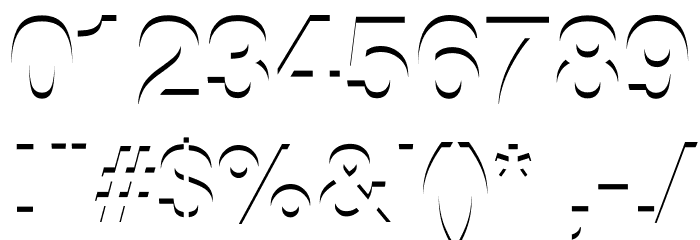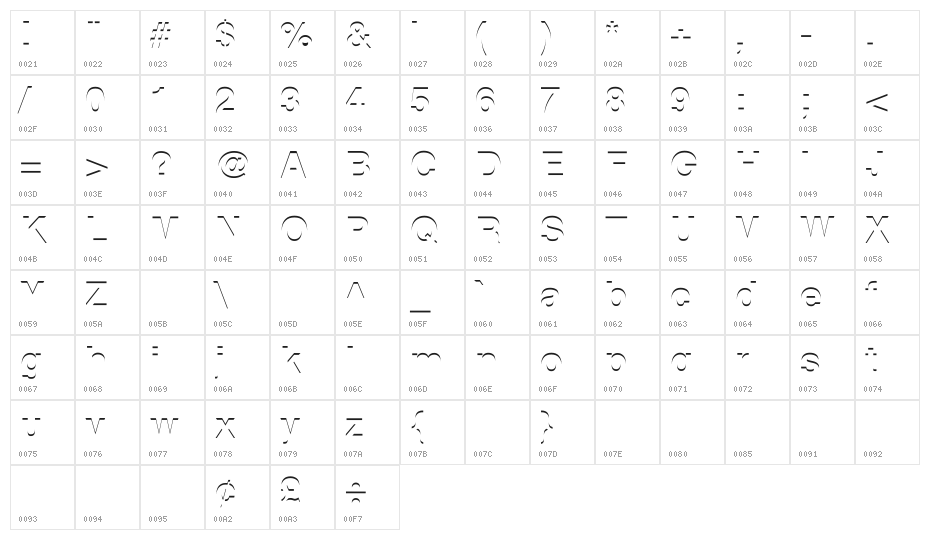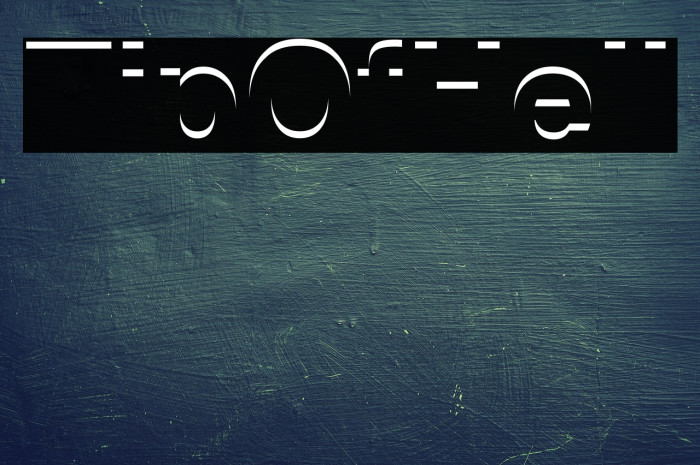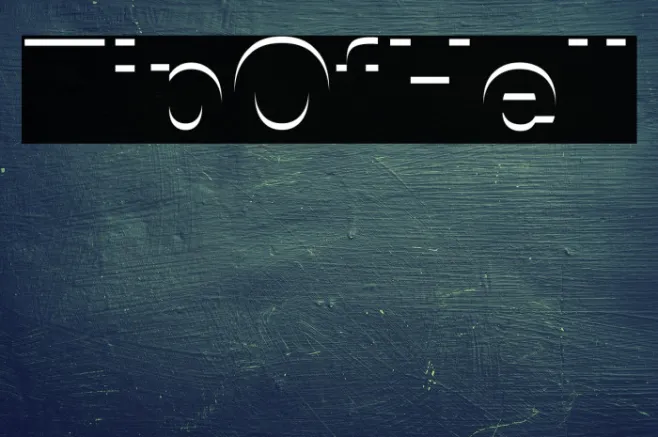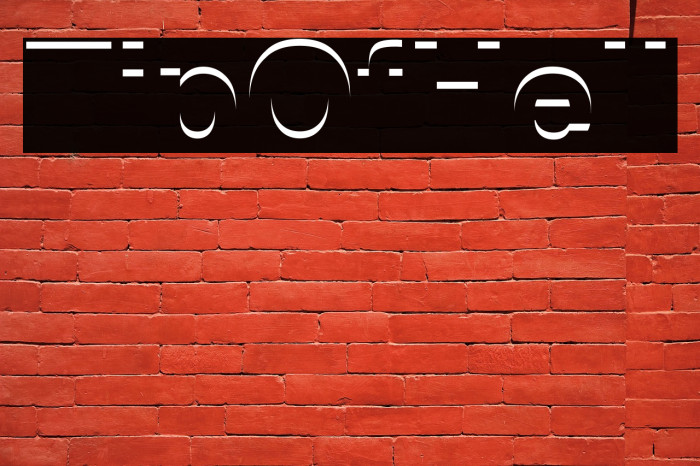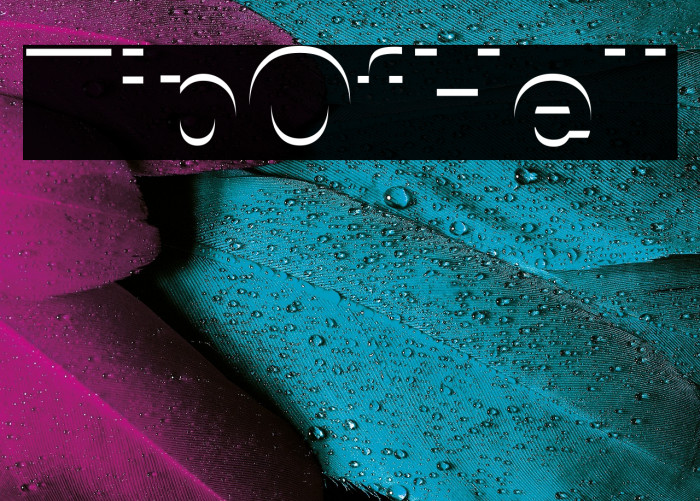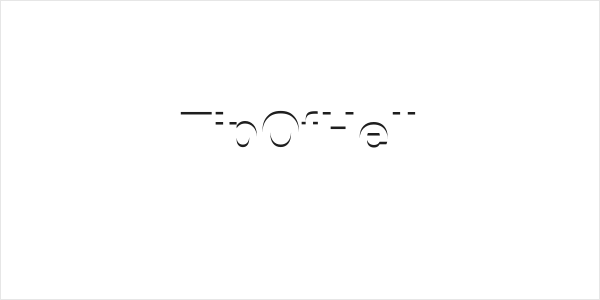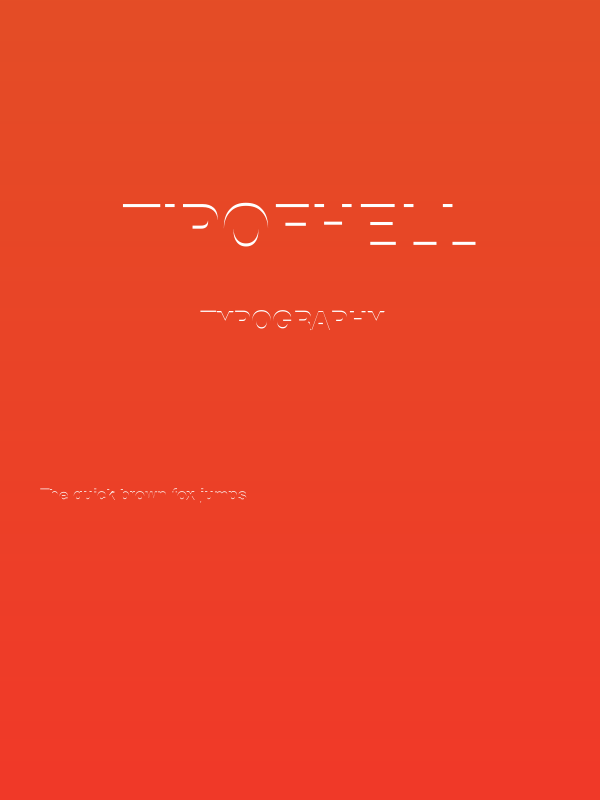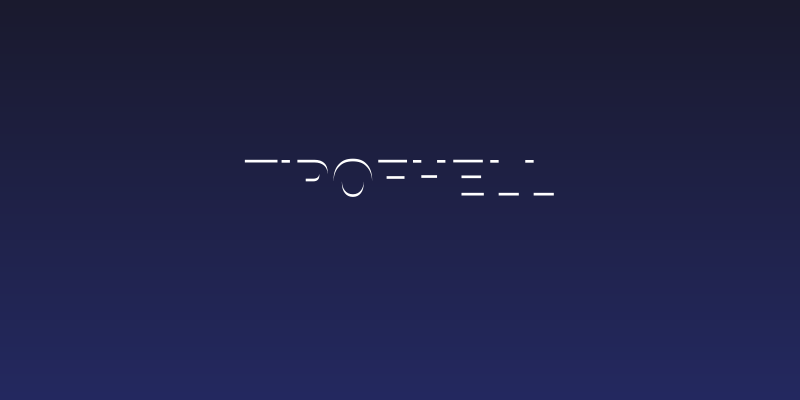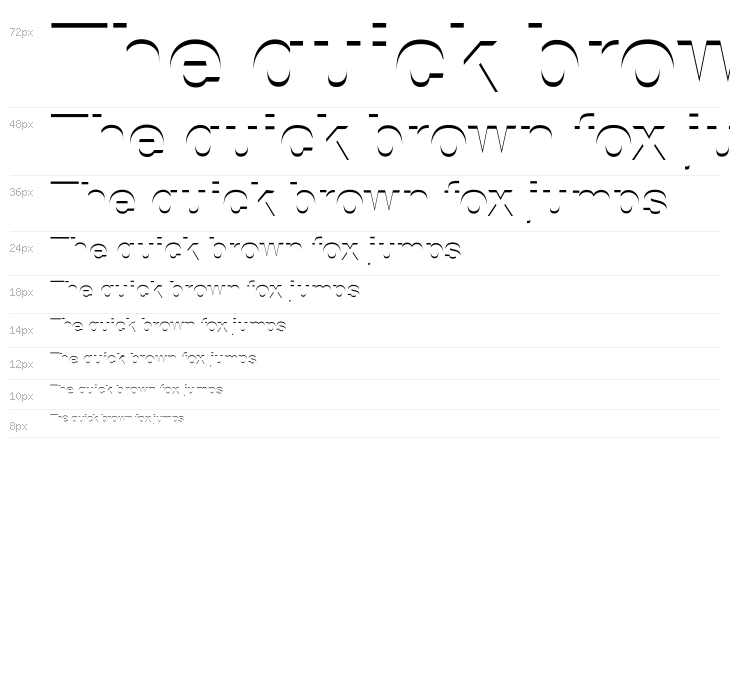
TipOfHell Font
TipOfHell Description
This font features a modern, abstract design with a unique cut-out style that creates a sense of movement and intrigue. The characters are composed of solid lines interrupted by strategic gaps, giving it a futuristic and edgy appearance. The uppercase and lowercase letters maintain a consistent style, with the numbers and special characters following suit. The font's design is both minimalistic and bold, making it stand out in any context. Its geometric shapes and clean lines make it suitable for contemporary design projects, where a touch of creativity and modernity is desired.